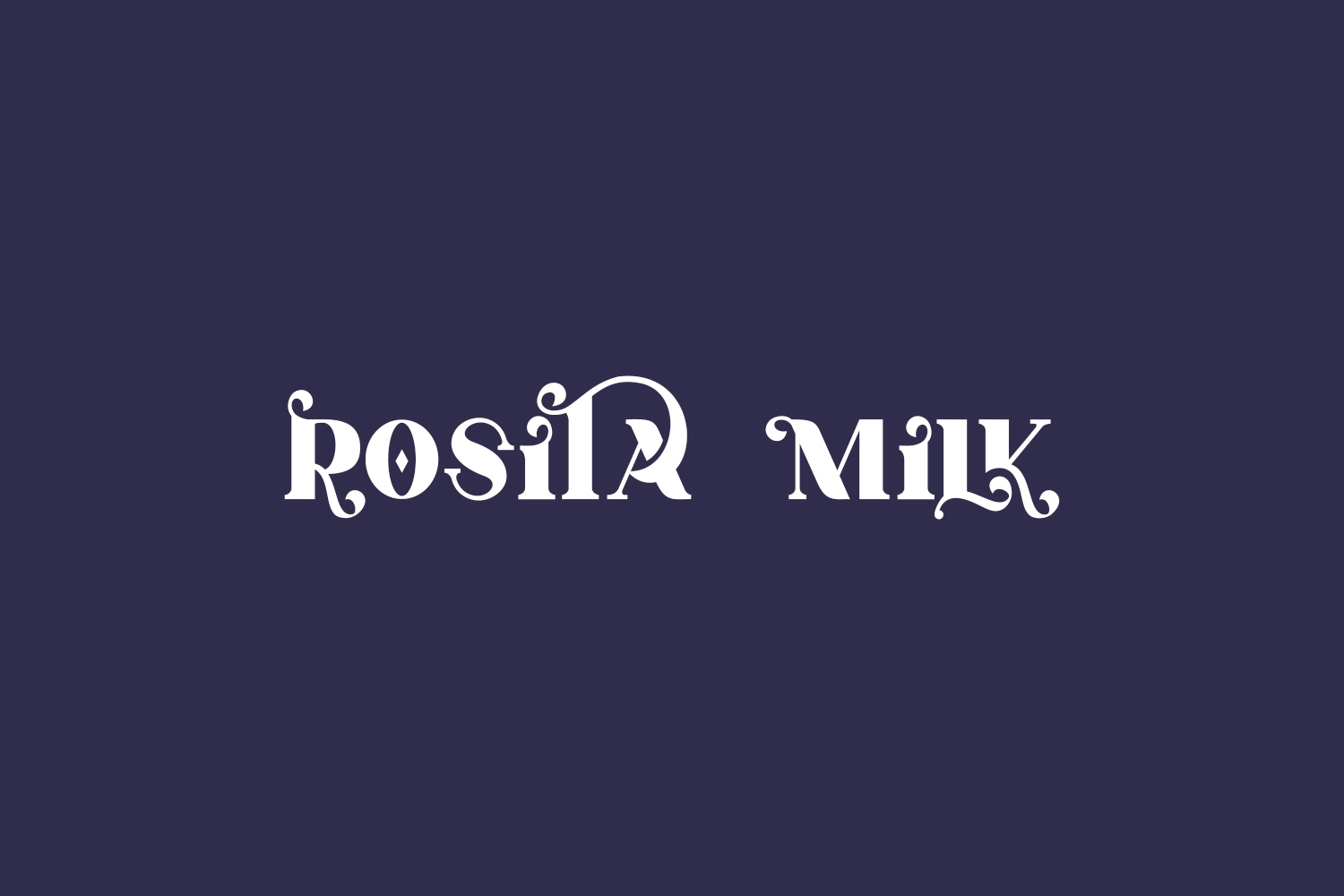
Rosita Milk Free Font is a bold, distinct and cool serif font. It will look stunning on any poster flyer or print. Use this font for your designs and explore its endless possibilities. Rosita Milk Free Font was designed by GFR Creative and is free for personal use only. Please purchase the full version for commercial use.